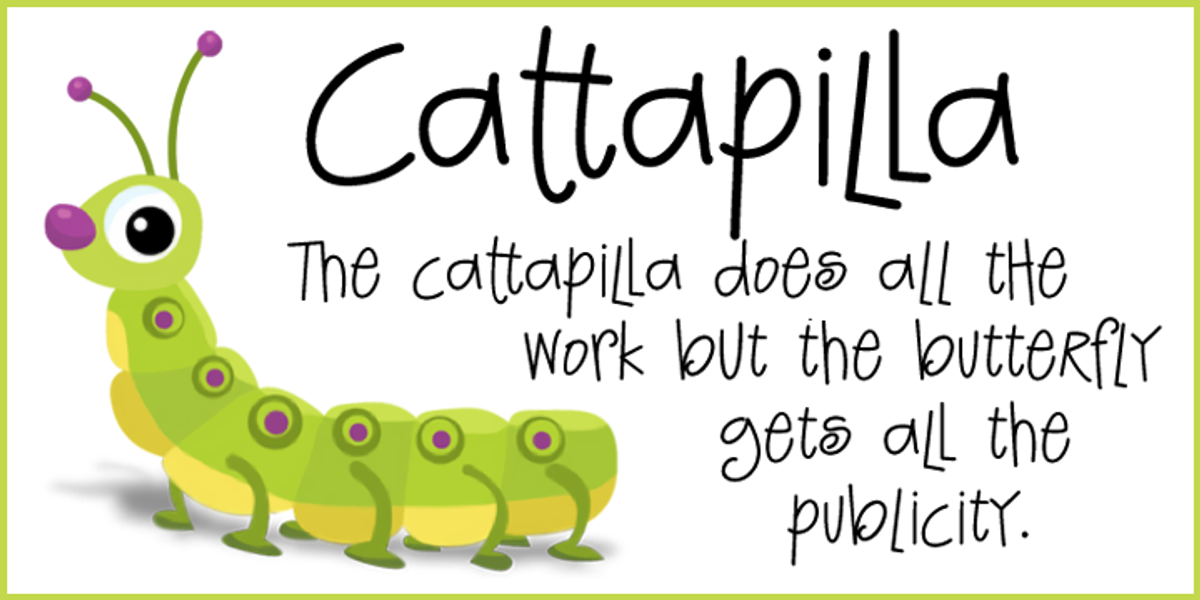
Cattapilla
Cattapilla is a whimsical hand-drawn script font designed for creative projects. Its open type version offers extra ligatures and stylistic alternates, making it ideal for scrapbooking, greeting cards, announcements, or any project where a playful, informal touch is desired.